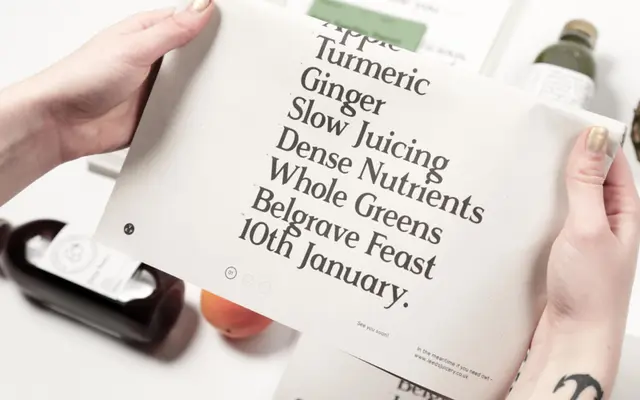
Rasmus specimen from The Designers Foundry
A four-style contemporary serif by Markus John, drawing loosely from Times and Sabon while adding oblique serifs and a notably larger x-height in the Bold cut.
Designed in 2014 by German designer Markus John, the family runs to Regular, Bold and their matching italics, with 381 glyphs per style and broad Latin language support covering over 70 languages. The Bold weight carries a larger x-height than the Regular, giving it a distinct visual weight beyond conventional bold compensation. Oblique serifs lend the face an angular quality that separates it from its classical references. In use across editorial, branding and culture-adjacent projects.
Loosely derived from classic oldstyle serifs such as Times and Sabon, but with experimental details including oblique serifs and a larger x-height in the Bold weight, placing it in a contemporary serif category rather than a strict historical revival.